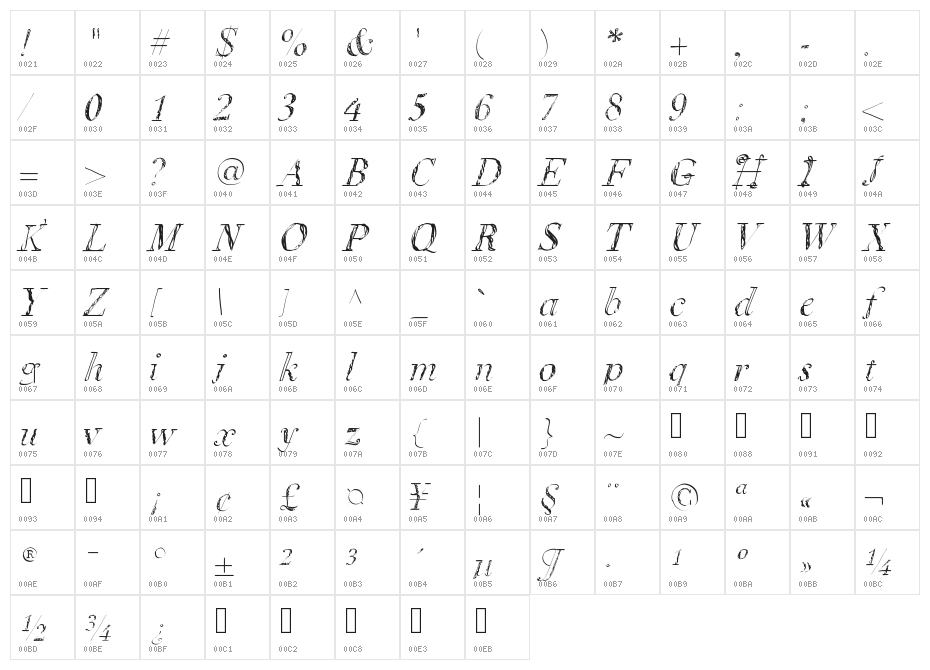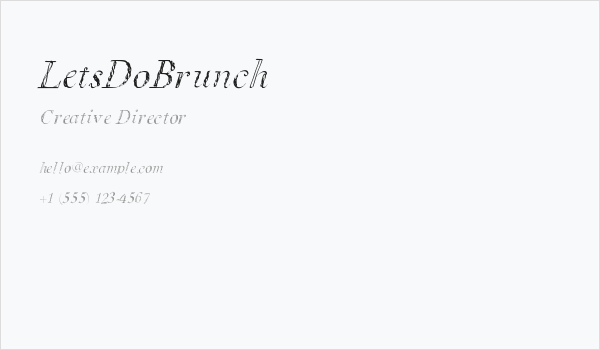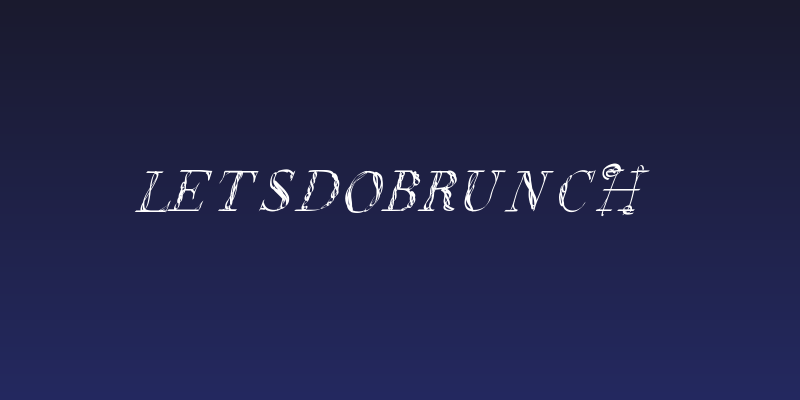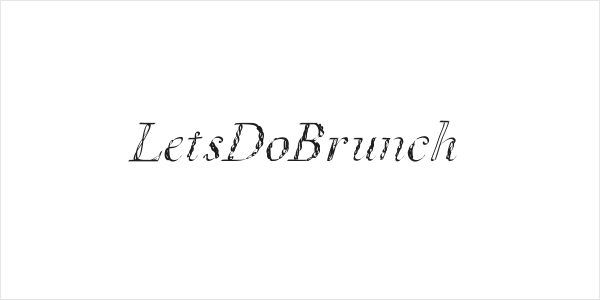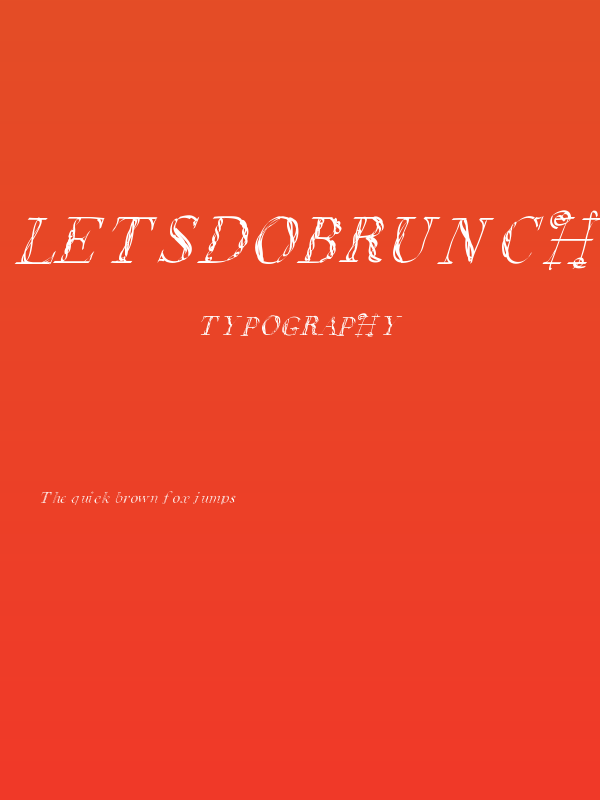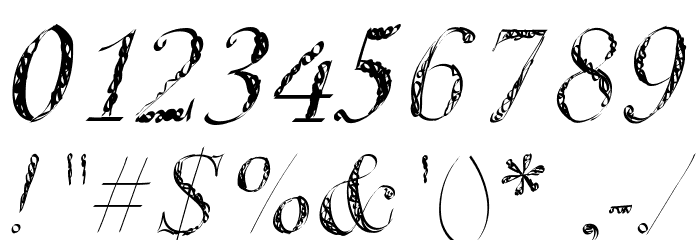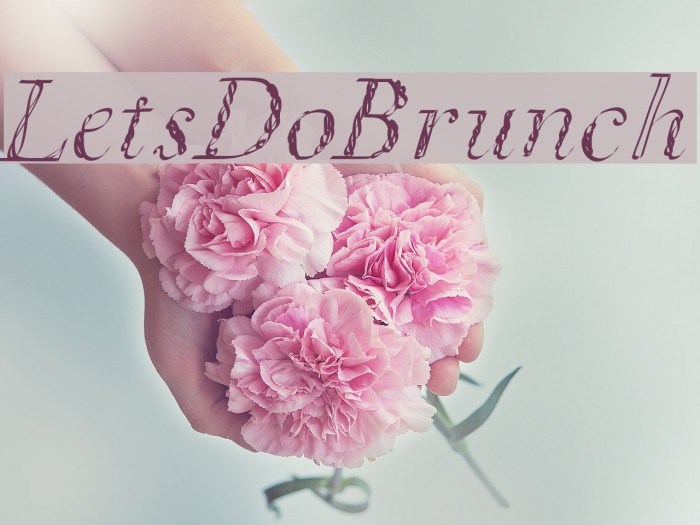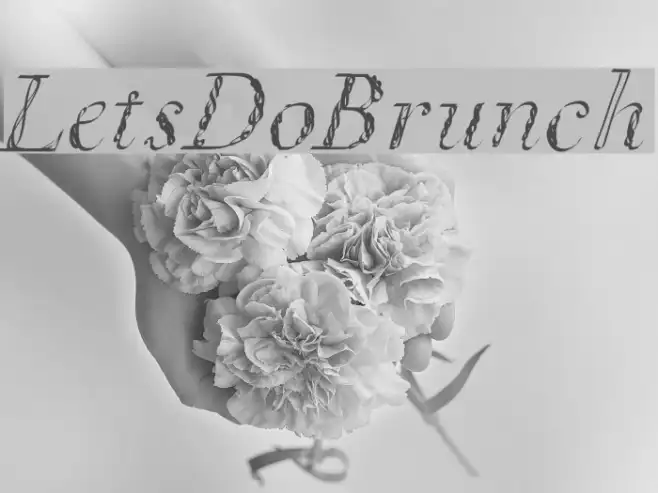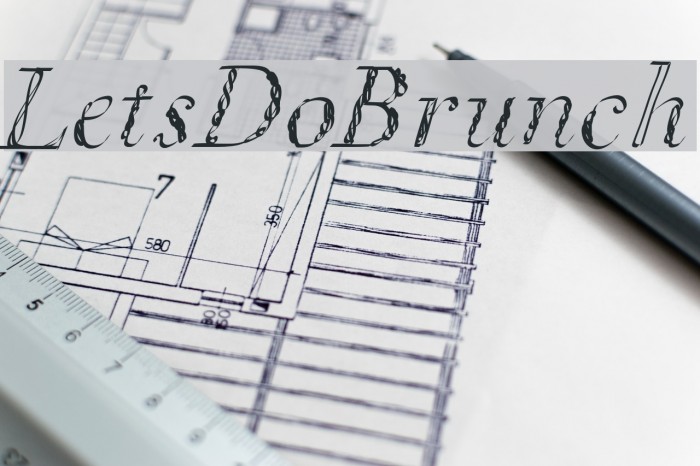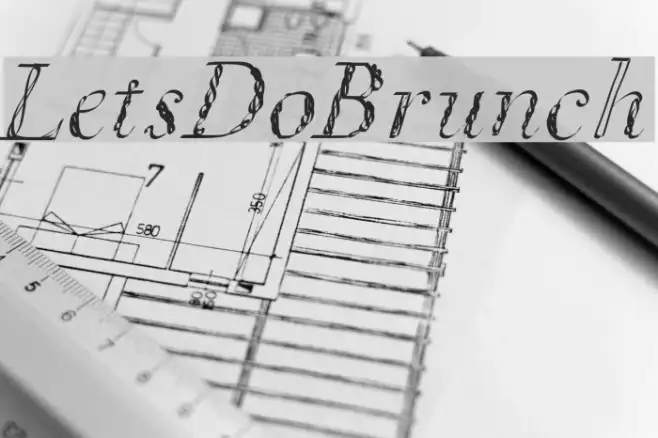
LetsDoBrunch Font
LetsDoBrunch Description
This font features a decorative and intricate design with a script-like appearance. Each character is adorned with elaborate swirls and flourishes, giving it a whimsical and artistic feel. The uppercase letters are particularly ornate, with loops and curves that extend beyond the typical letterform boundaries. The lowercase letters maintain a consistent style, with a slightly more restrained embellishment. Numbers and special characters follow the same decorative theme, ensuring a cohesive look across all glyphs. The overall impression is one of elegance and creativity, making it suitable for projects that require a touch of sophistication and flair.